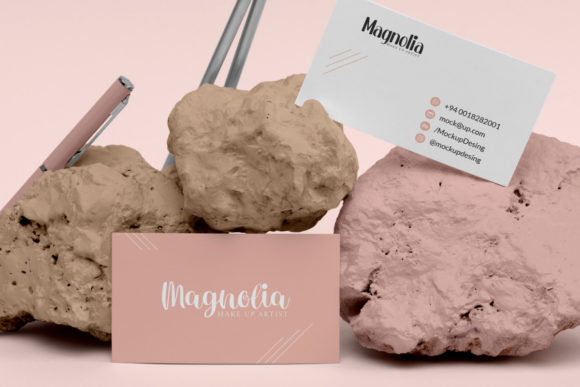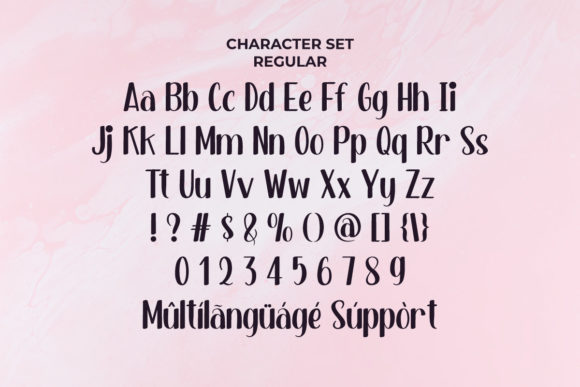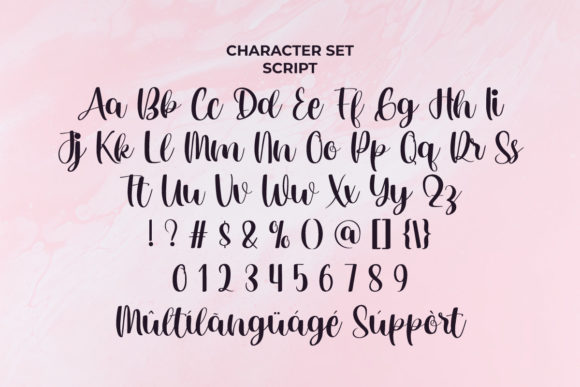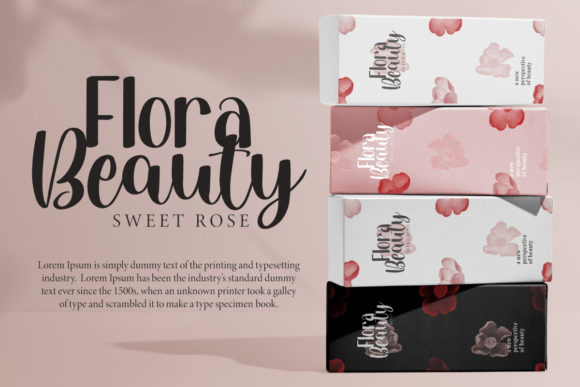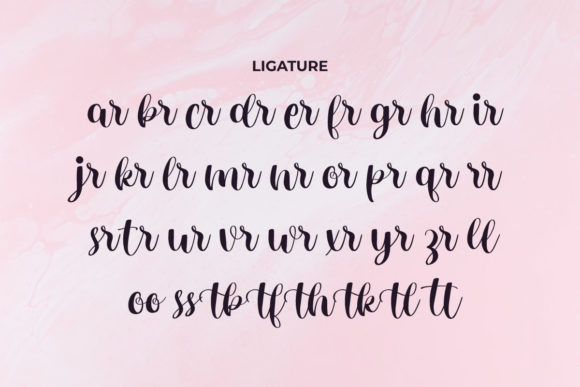
Introduction to Pretty Good Font
Pretty Good is a romantic and chic duo font (handwritten and display).
It be perfect for creating product designs, quotes, brands, crafting, birthday invitations, wedding or just adding a handwritten touch to any projects .
Key Features of Pretty Good Font